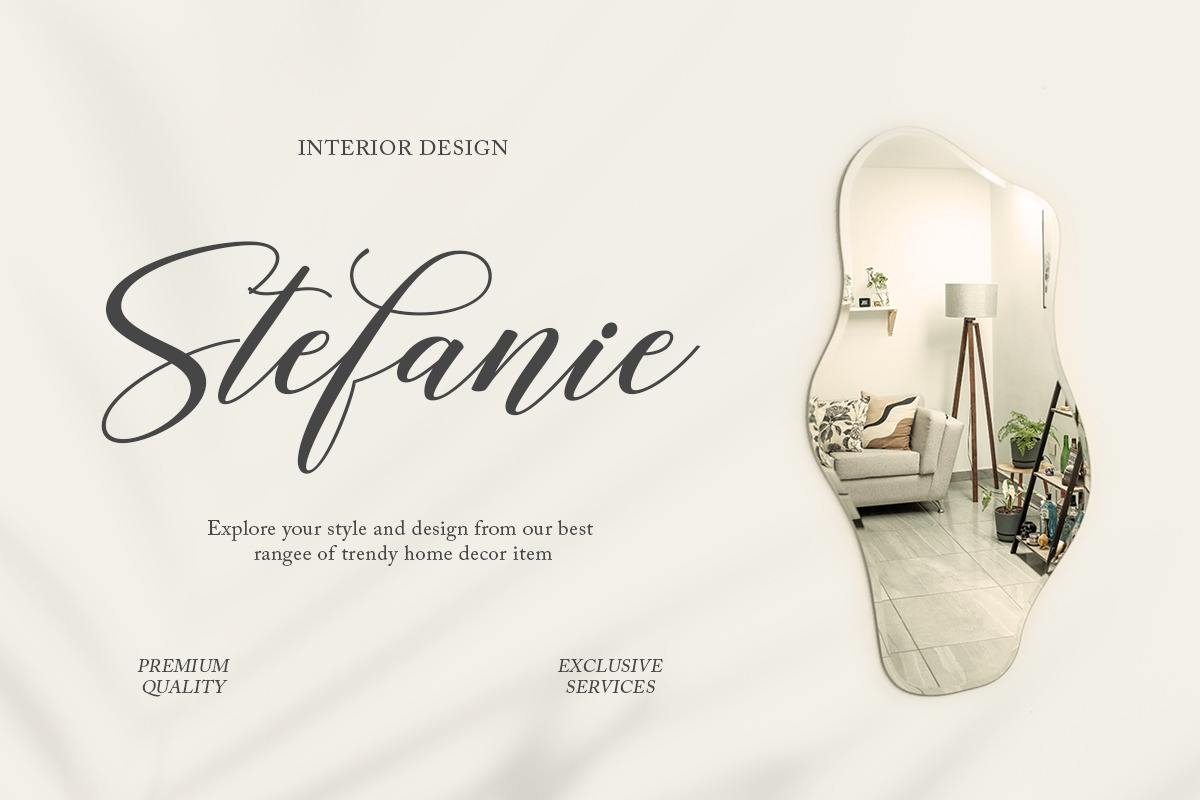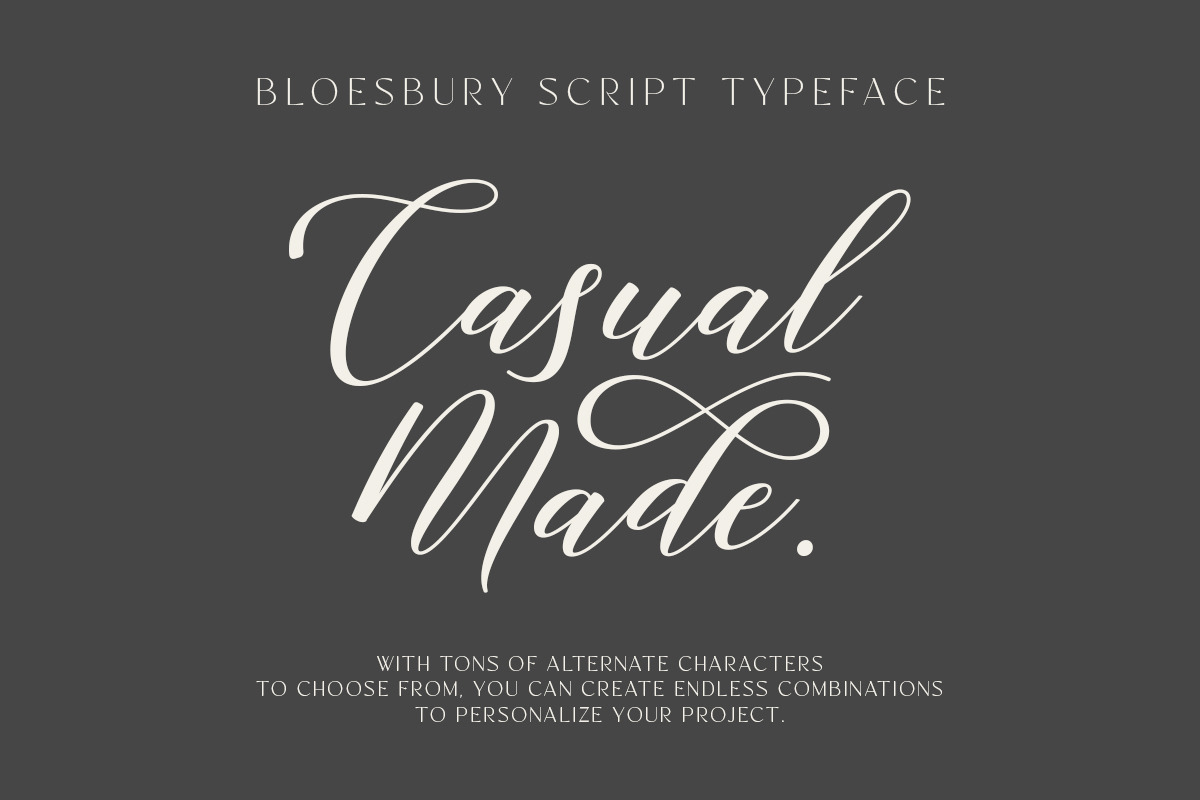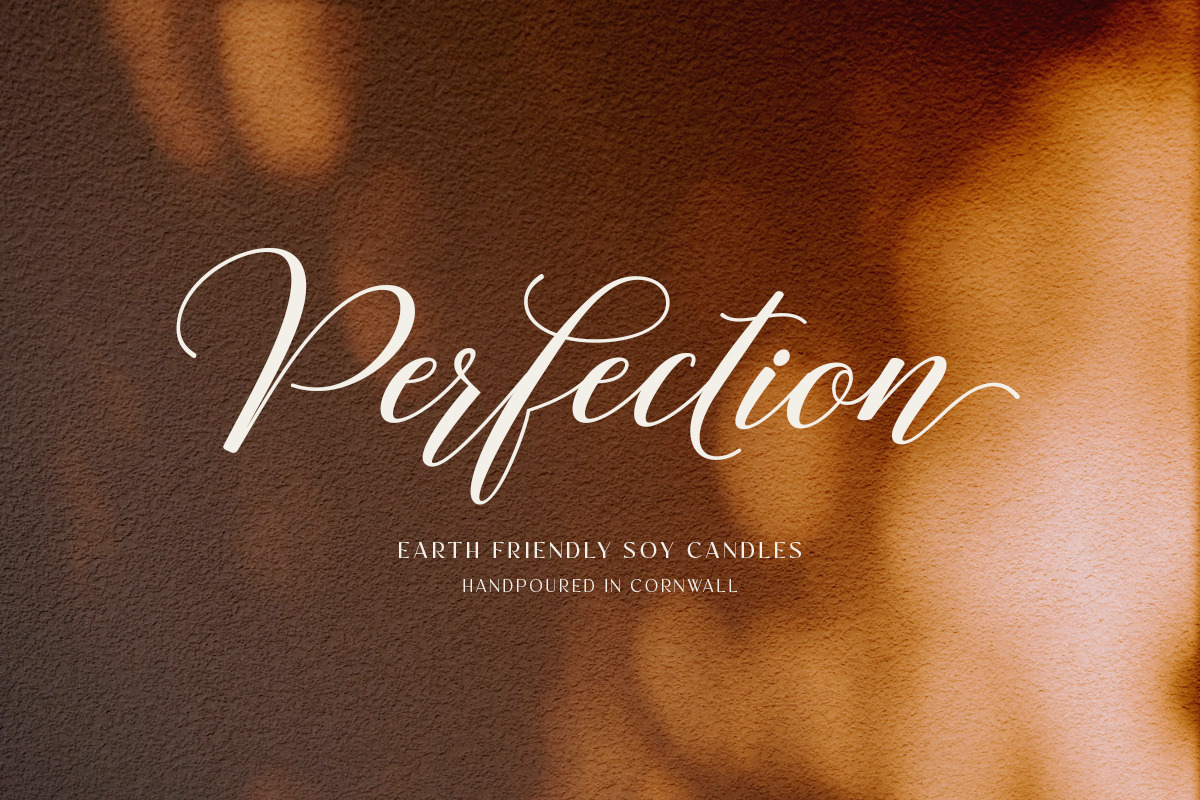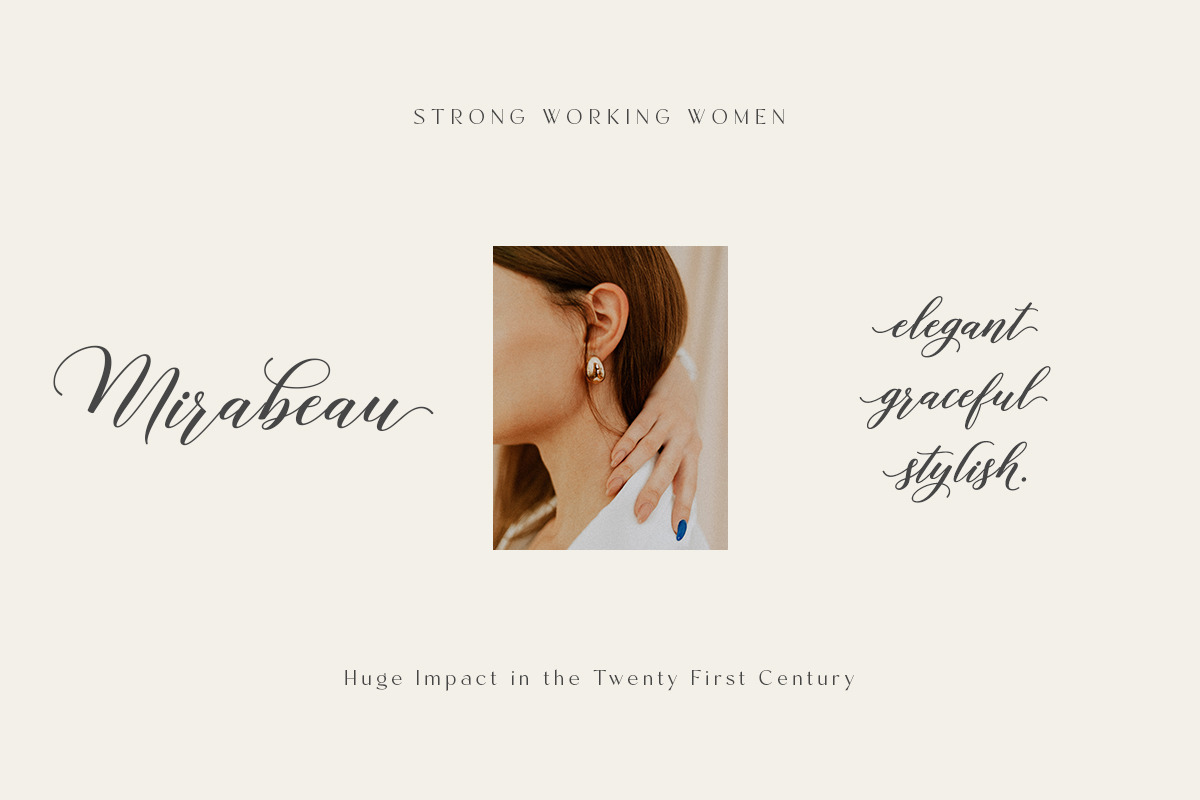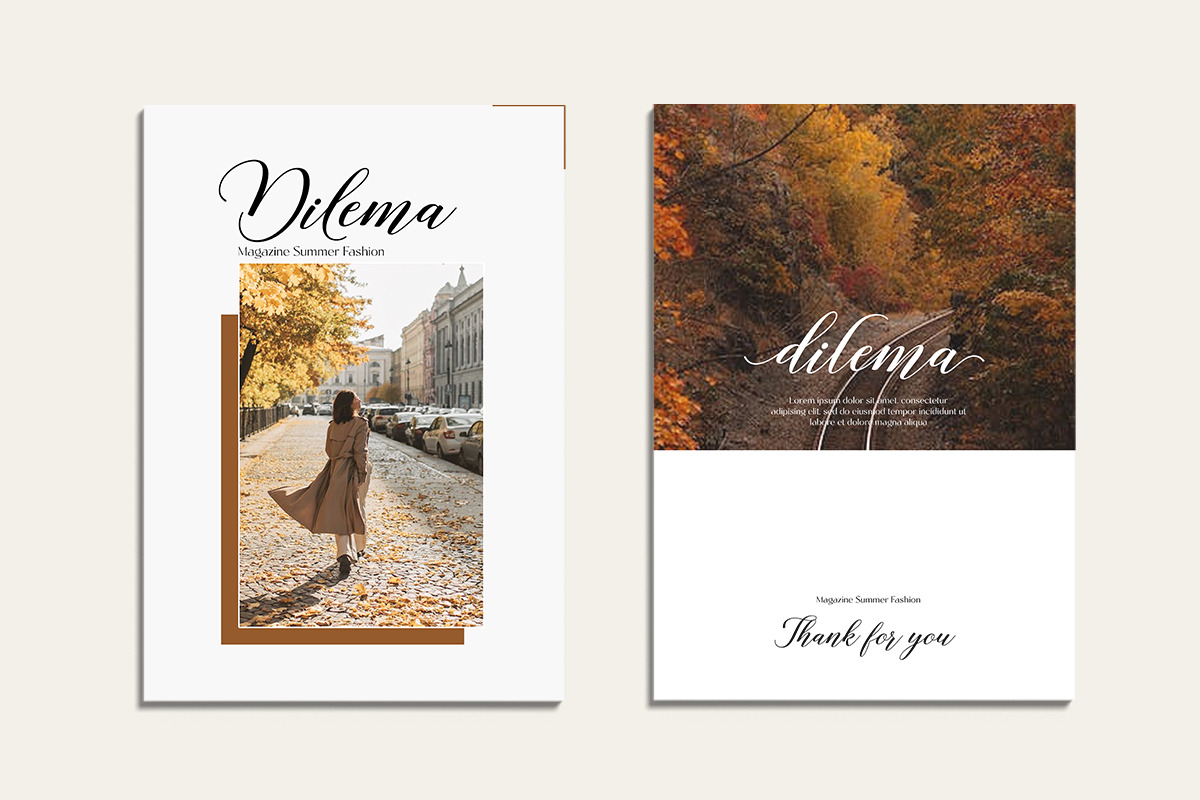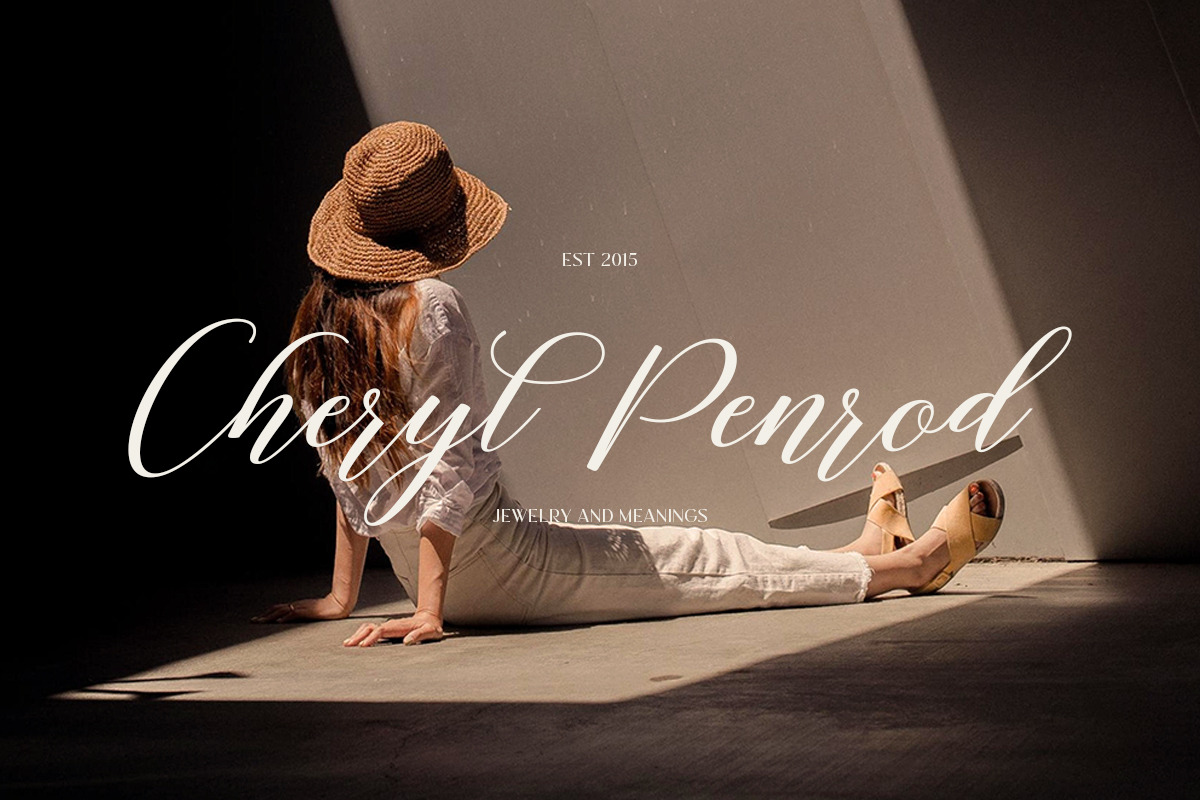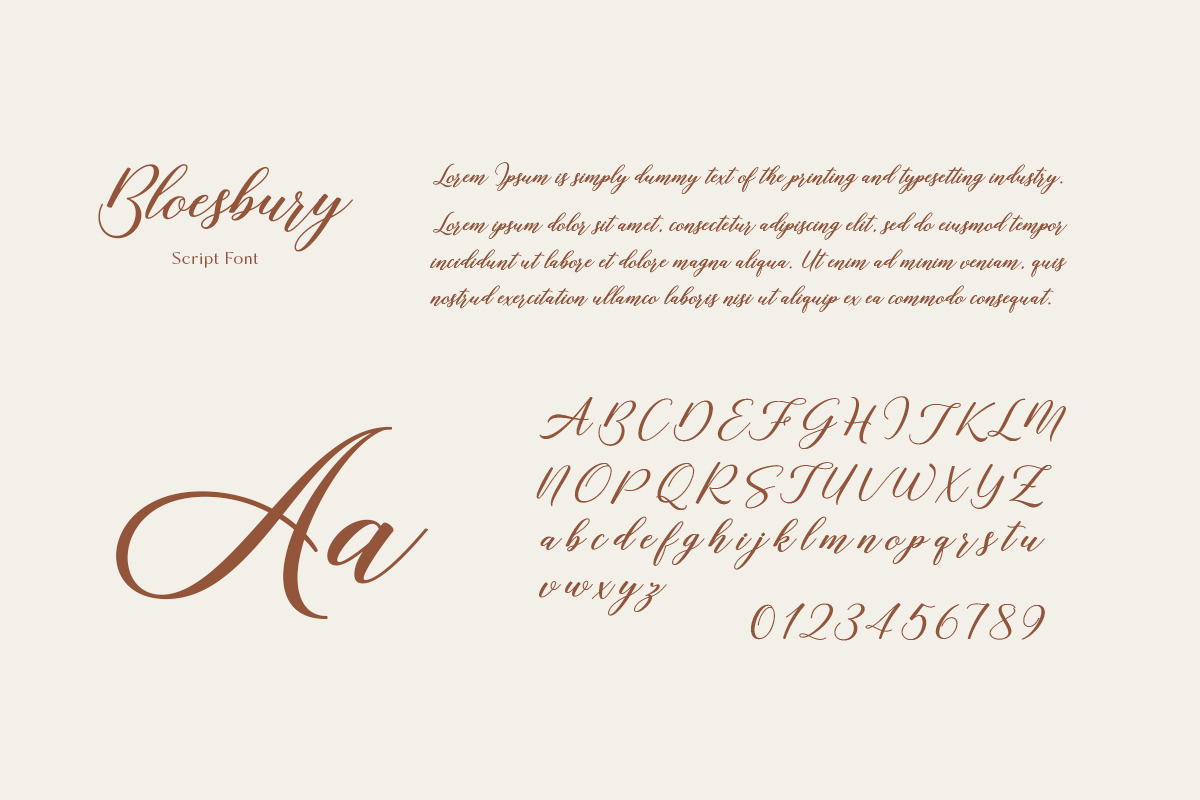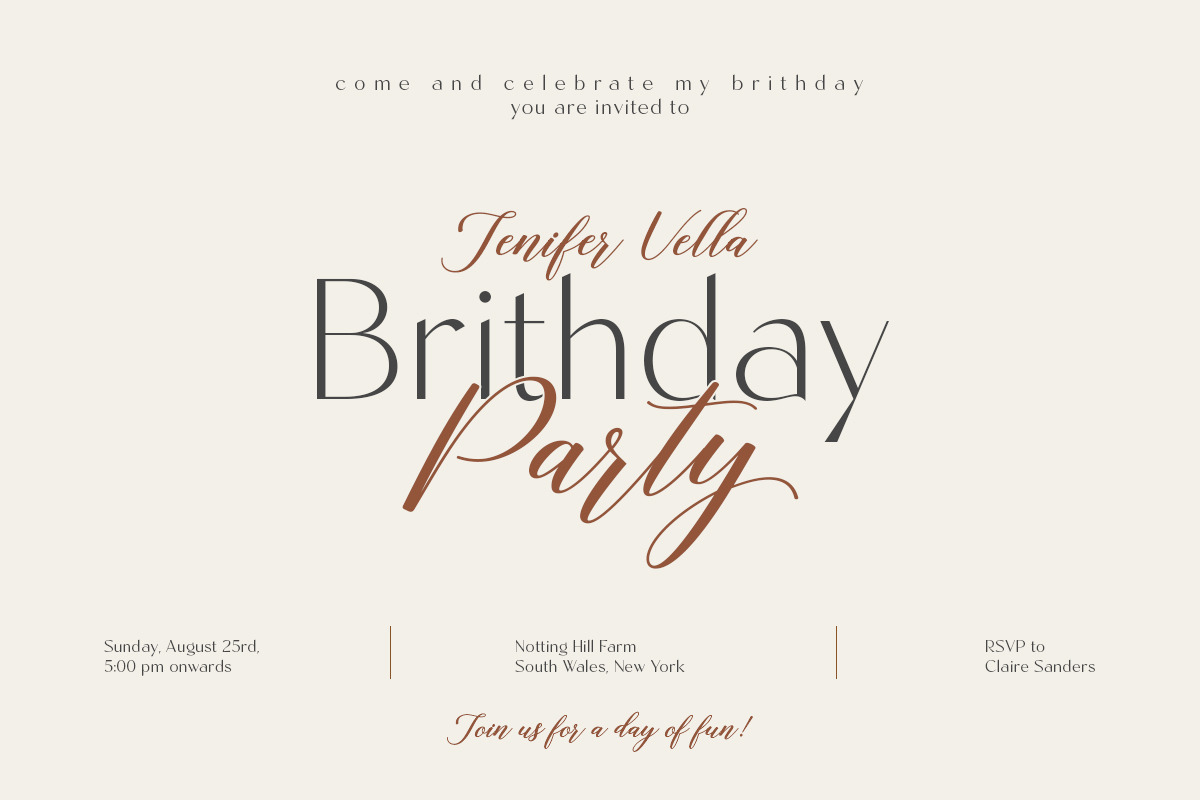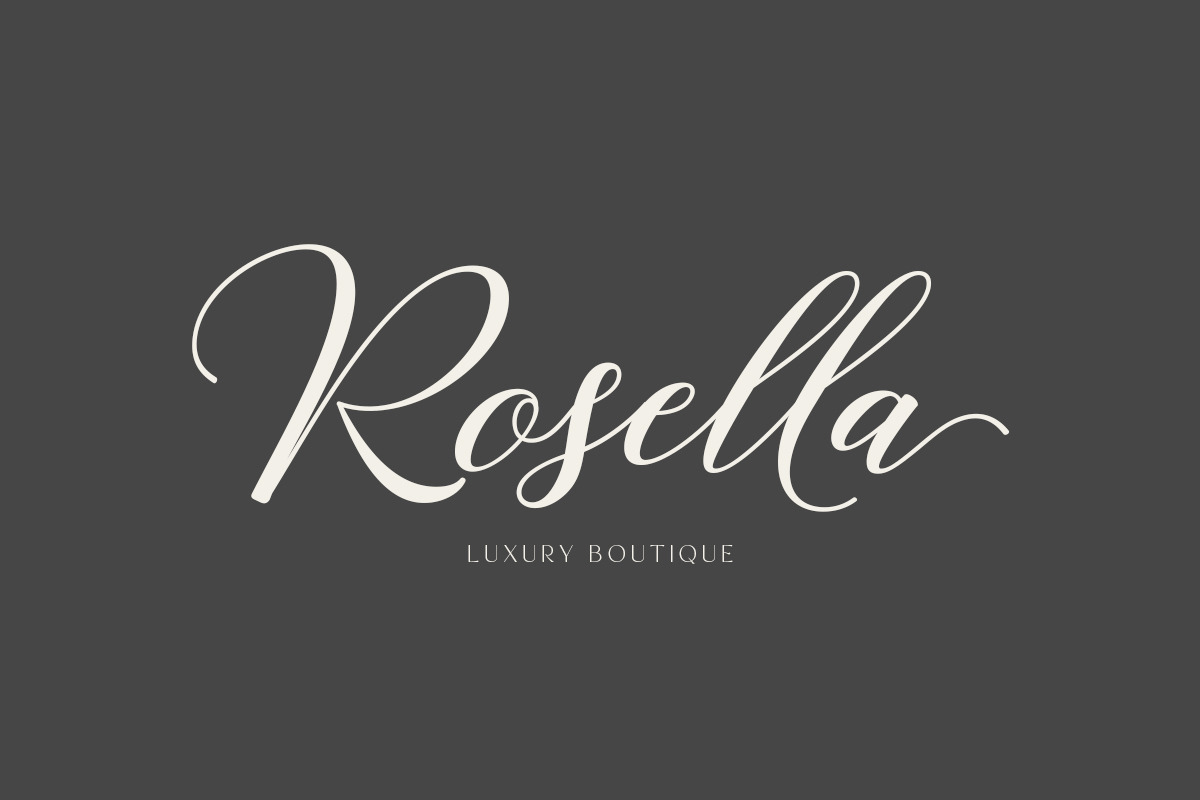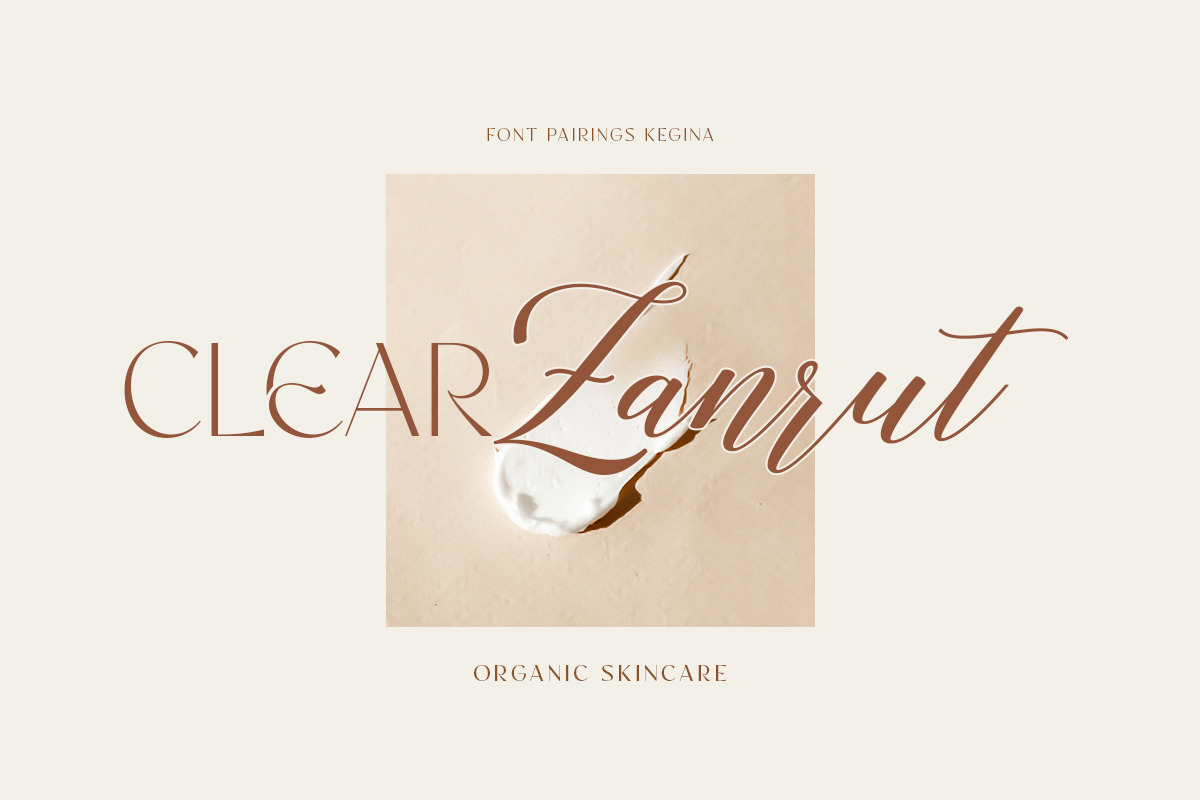
Bloesbury Script
Bloesbury is a modern style script font inspired by handwriting. This font is suitable for your design needs and can be combined with other fonts. Which is perfect for your design needs such as branding, logo design, wedding invitations, decorations, and more.